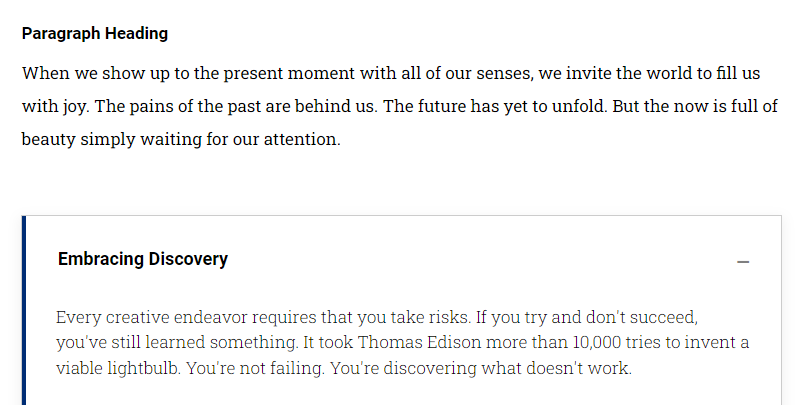
Is there a way to see all the fonts used in my course, and where they are used? Including the Bold, italic, light, etc. versions/variables of the font family.
Current scenario: A course is using fonts under settings listed as Roboto and Roboto slab. But when I preview my courses, the font in the accordion and the tabs appear very thin. They are definitely not the same as the regular text font. Is it possible it is replacing it with some variant such as Roboto Slab light? If so, where can I see that? Can I change it?
In my screenshot, all fonts are size 17 (Except accordion header). Screen zoom is 100%.
Tracey, I've noticed regular paragraph text defaults to 17px regular/400 weight, and the accordion text may look inconsistent as it uses a weight of 300 and 16px size and smaller line-height. I believe you could fix the weight if you really really wanted to, but it's not part of the built-in text editor options.